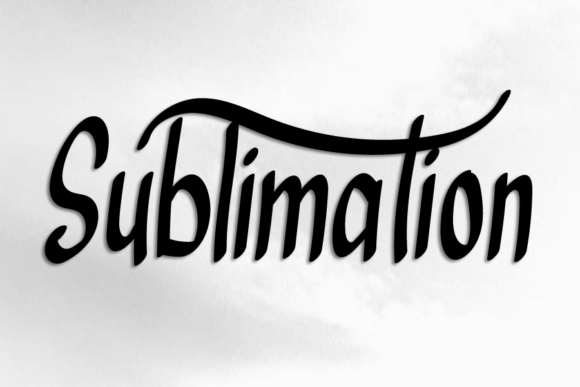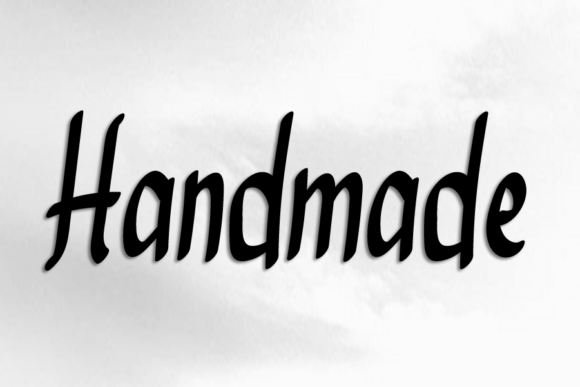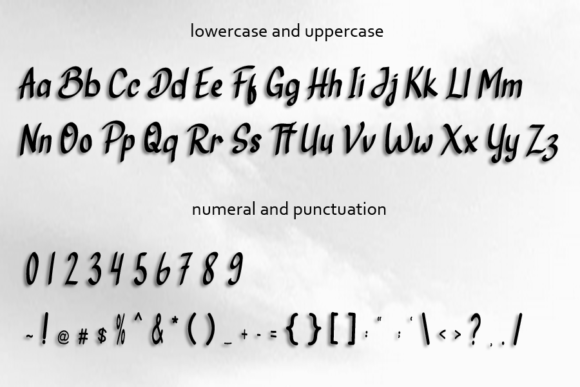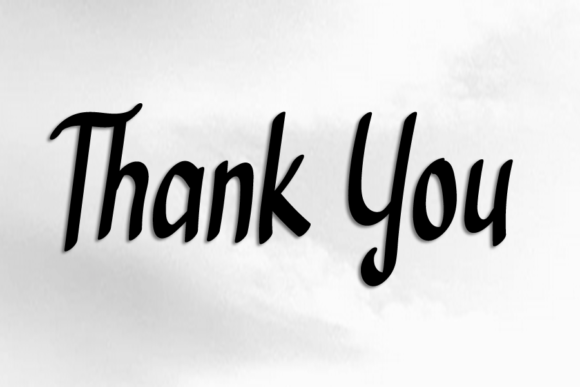
Procreate Font
About Procreate Font
Procreate is a simple, quirky, and adaptable handwritten font. You can successfully add this elegant font on wedding invitations, business cards, greetings cards, social media posts, wall art, and more.